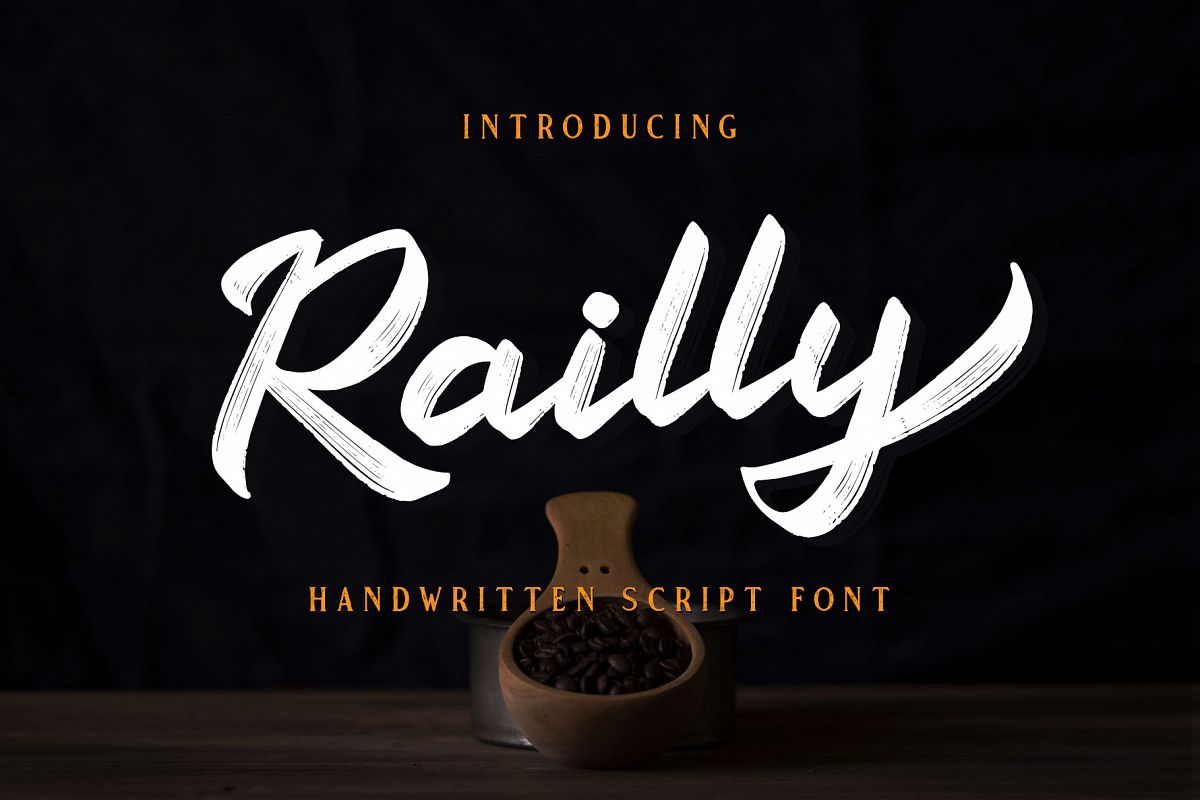
Railly - Handwritten Script Font
Railly
Introducing New Font : Railly - Handwritten Script Font
Railly - Handwritten Script Font is an brush script font based on the expression of real handwriting. Railly - Handwritten Script Font will work perfectly for fashion, e-commerce brands, trend blogs, wedding boutiques or any business that wants to appear upscale and chic.
1. Uppercase & Lowercase
2. Standard & Special Ligatures (a a e e g g i i j j o o n n u u y y)
3. Numerals & Punctuations (OpenType Standard)
4. Accents/Multilingual characters (AÀÁÂÃÄÅCÇDÐEÈÉÊËIÌÍÎÏNÑOØÒÓÔÕÖUÙÜÚÛWYÝŸỲŸÆŒßÞ)